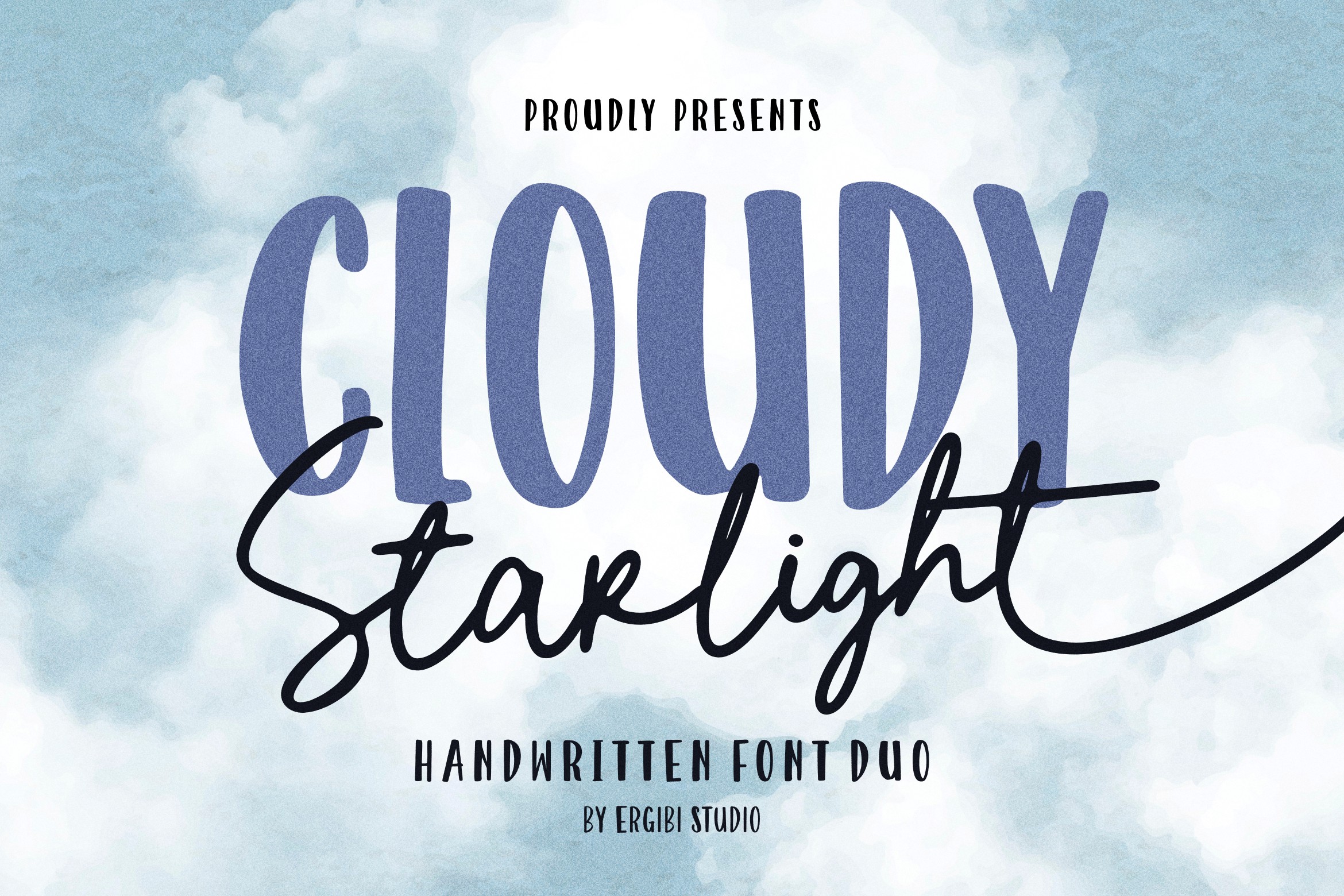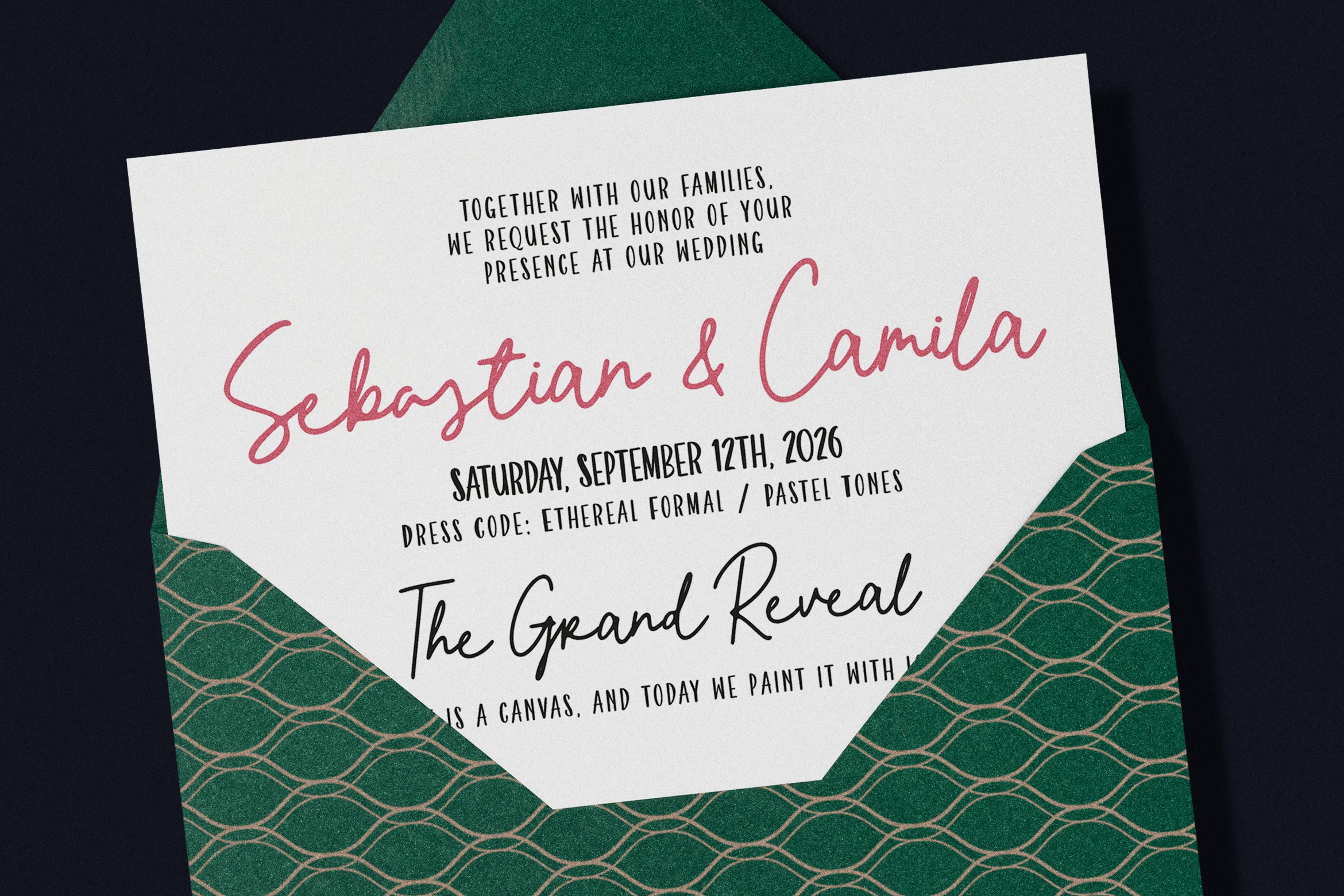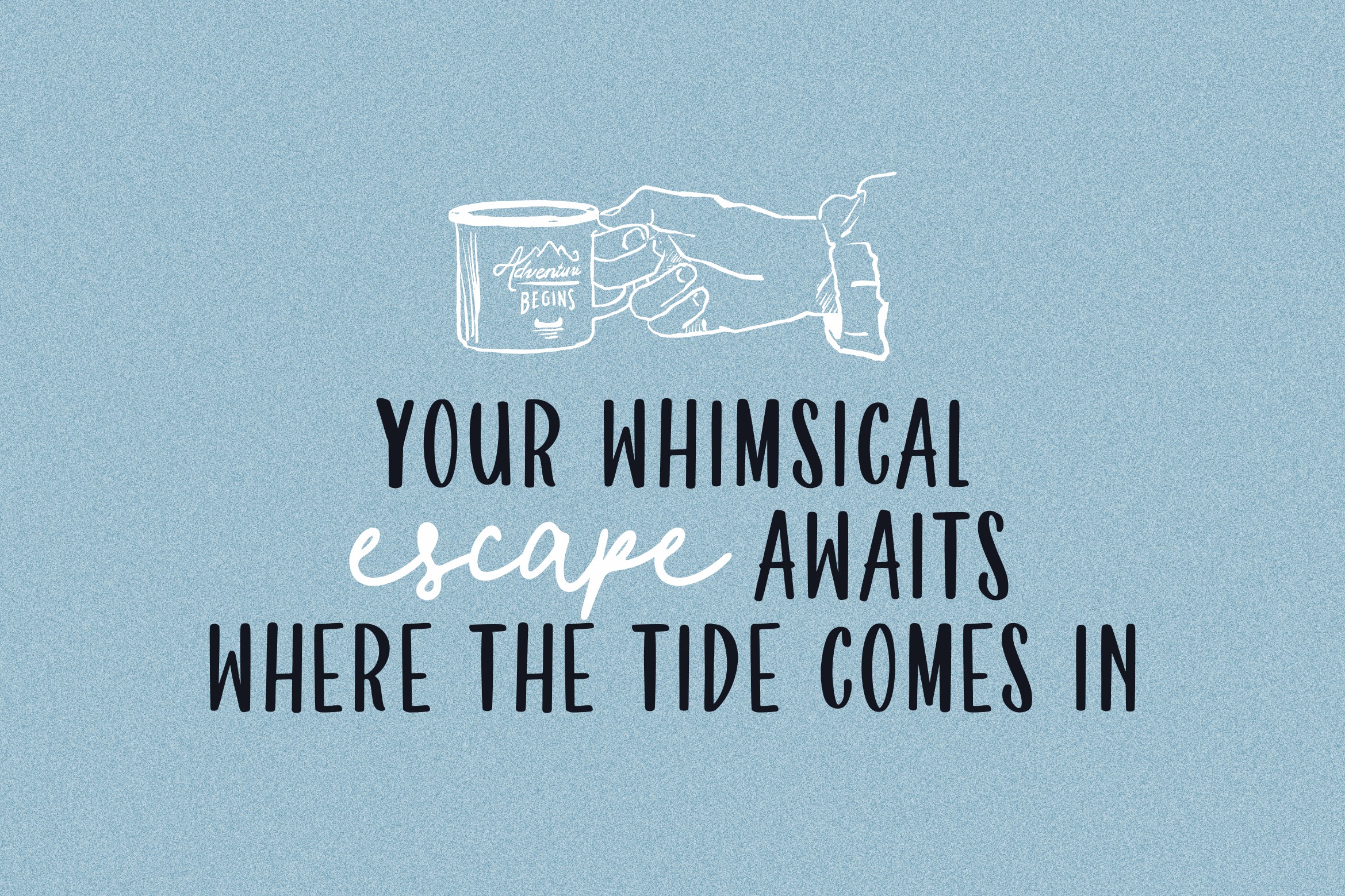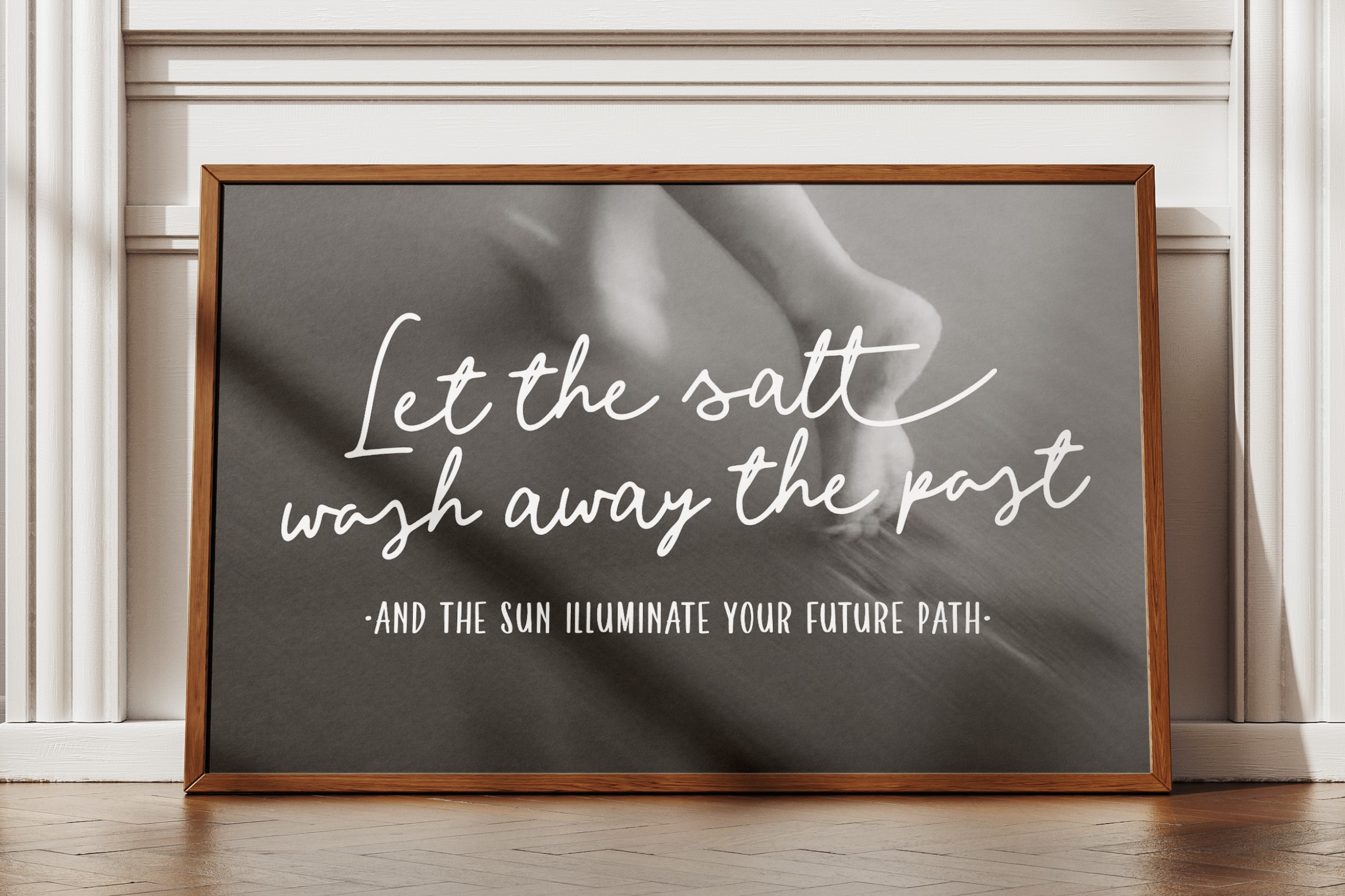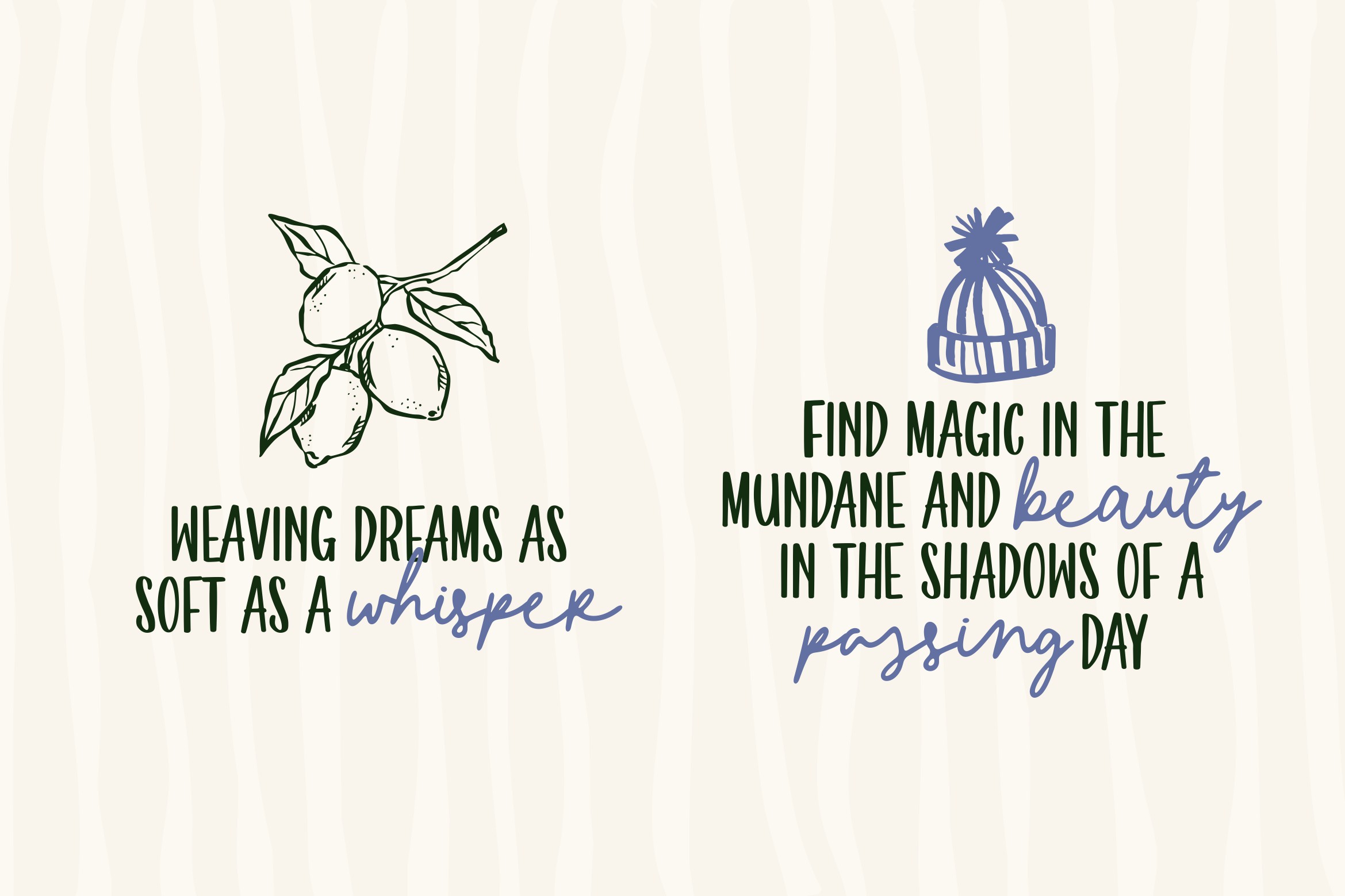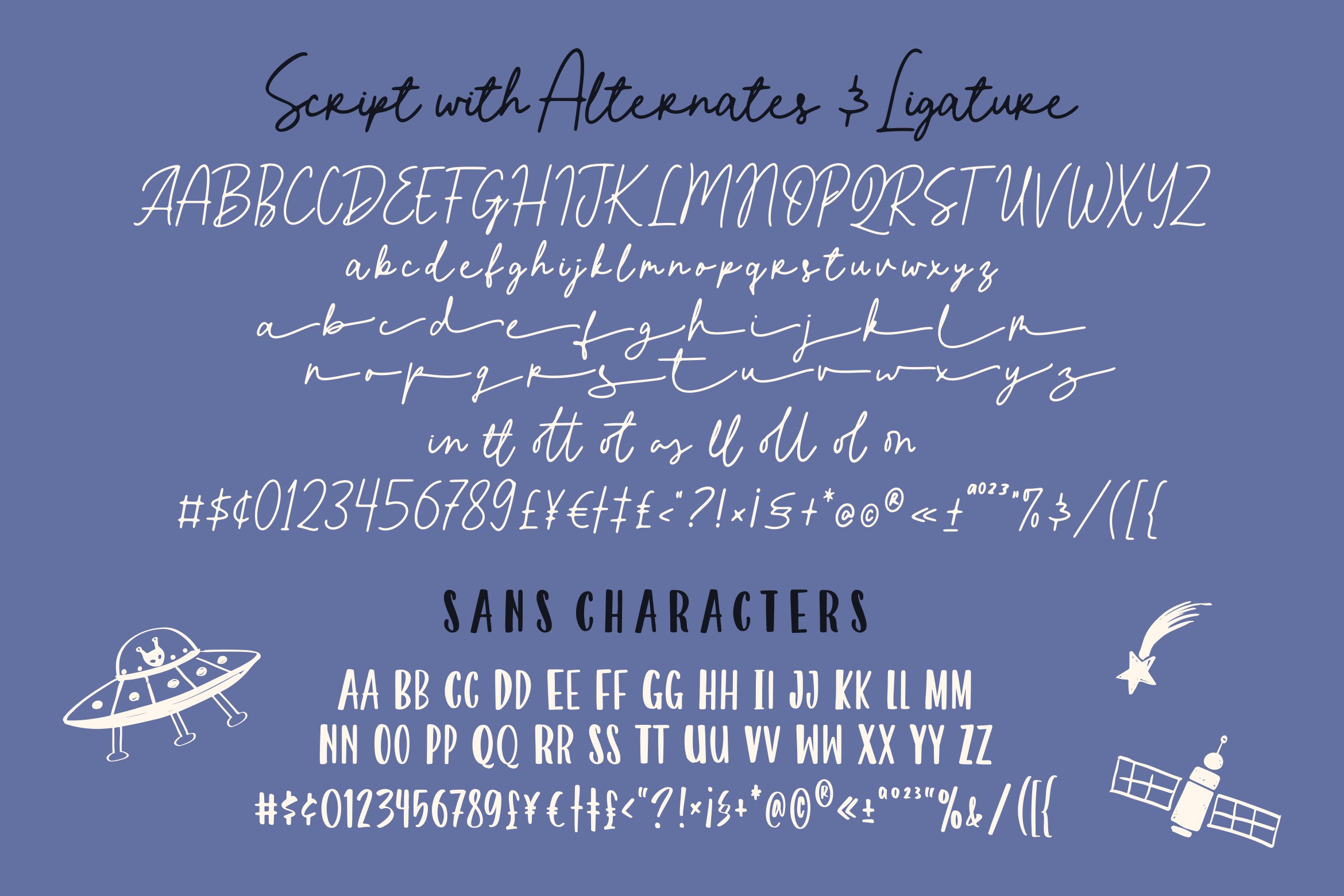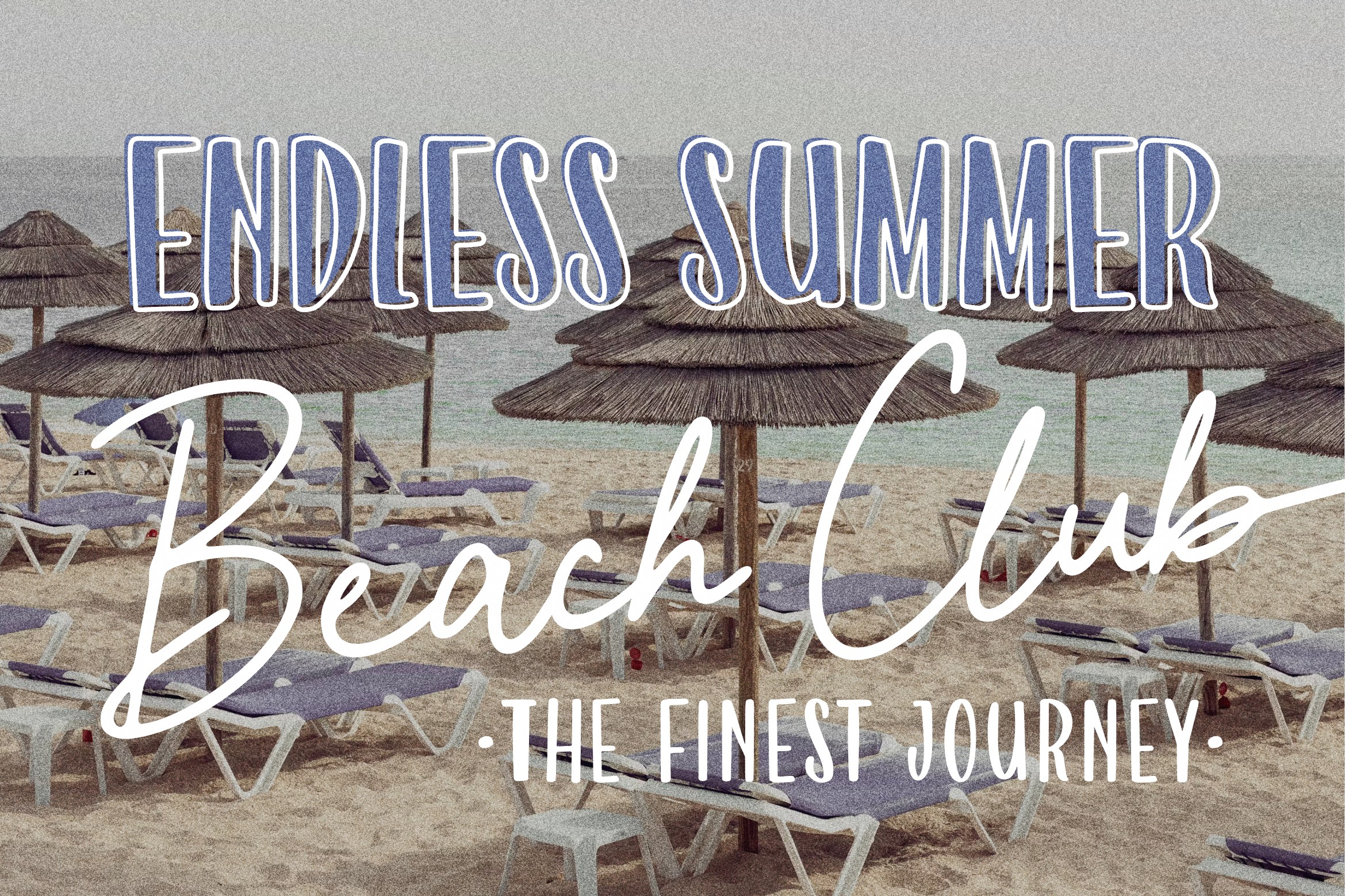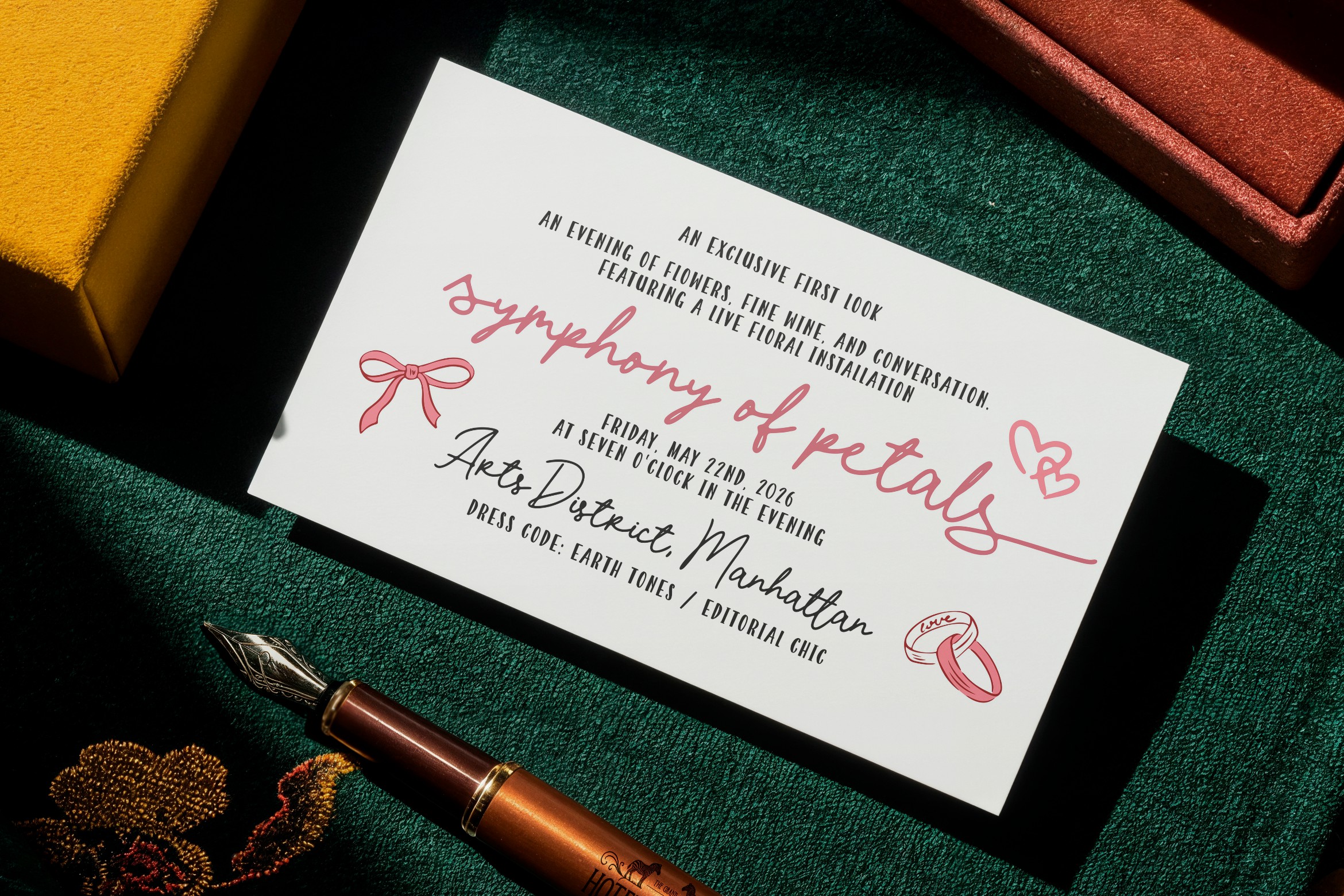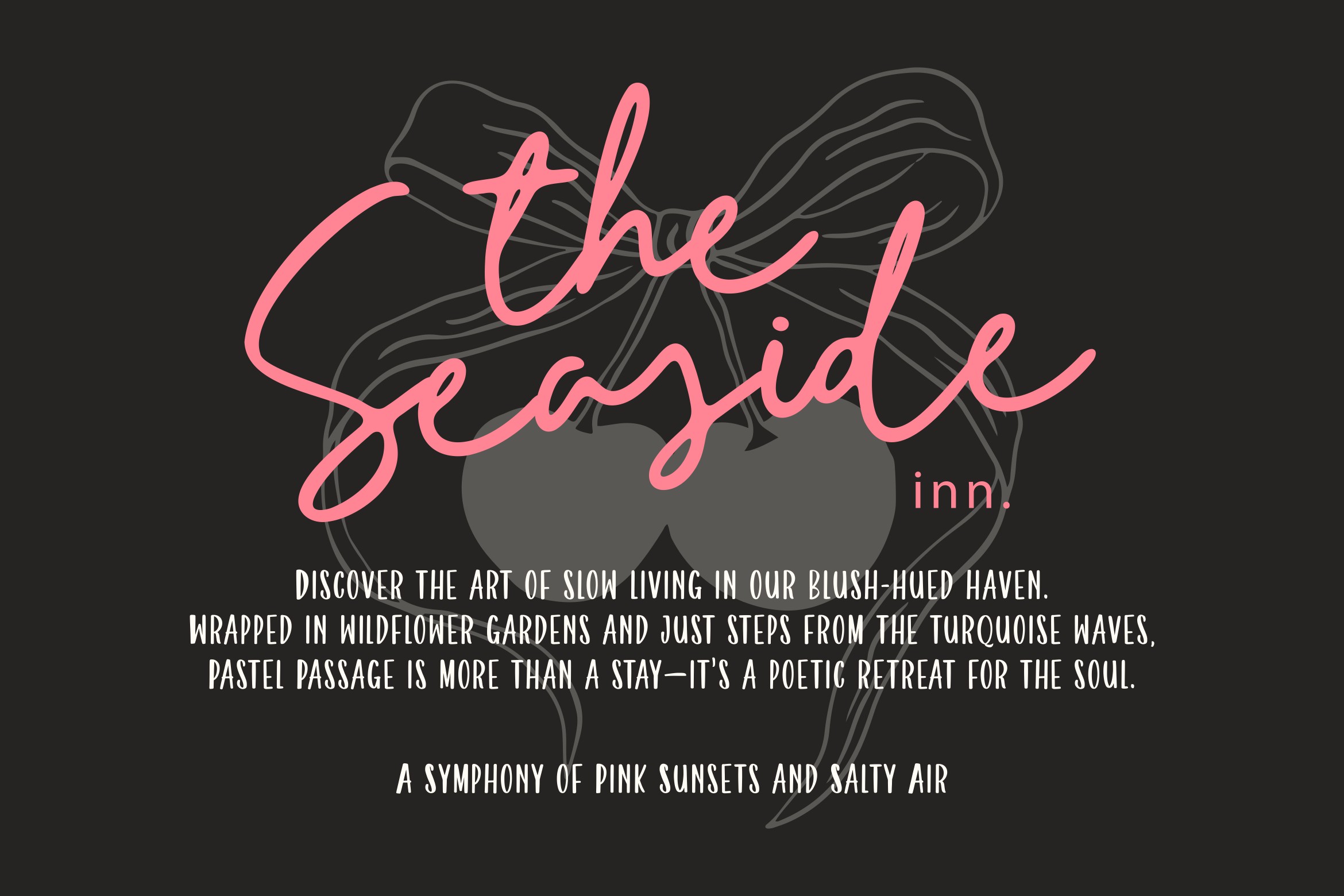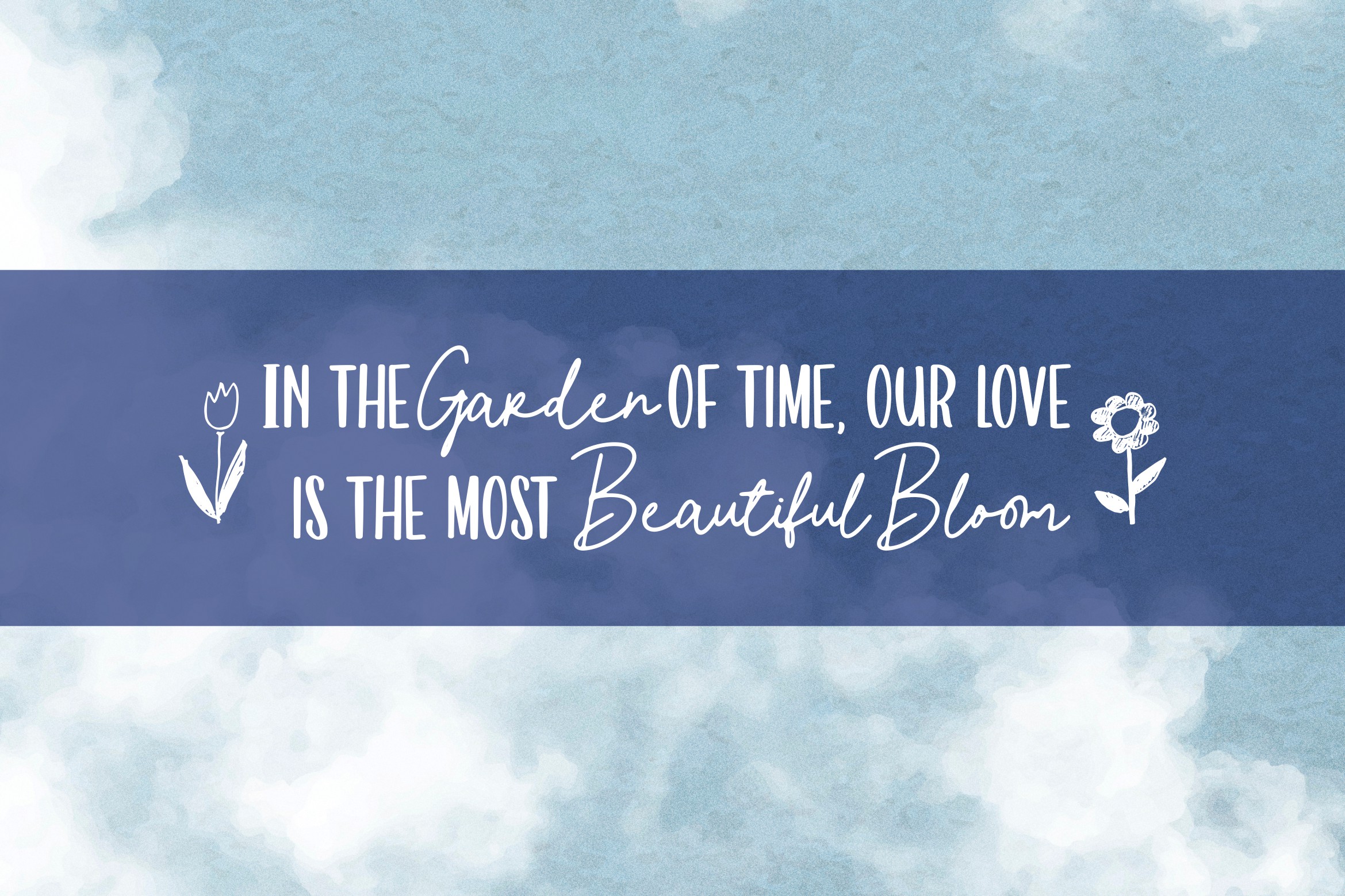
Cloudy Starlight is a beautifully crafted handwritten font duo that combines a bold, playful display style with a smooth, flowing script, creating a perfect balance between charm and elegance. The strong uppercase characters bring a confident presence, while the handwritten script adds a natural, personal touch that feels warm and expressive.
With its versatile style and eye-catching appearance, Cloudy Starlight helps your designs stand out while maintaining a soft and magical feel